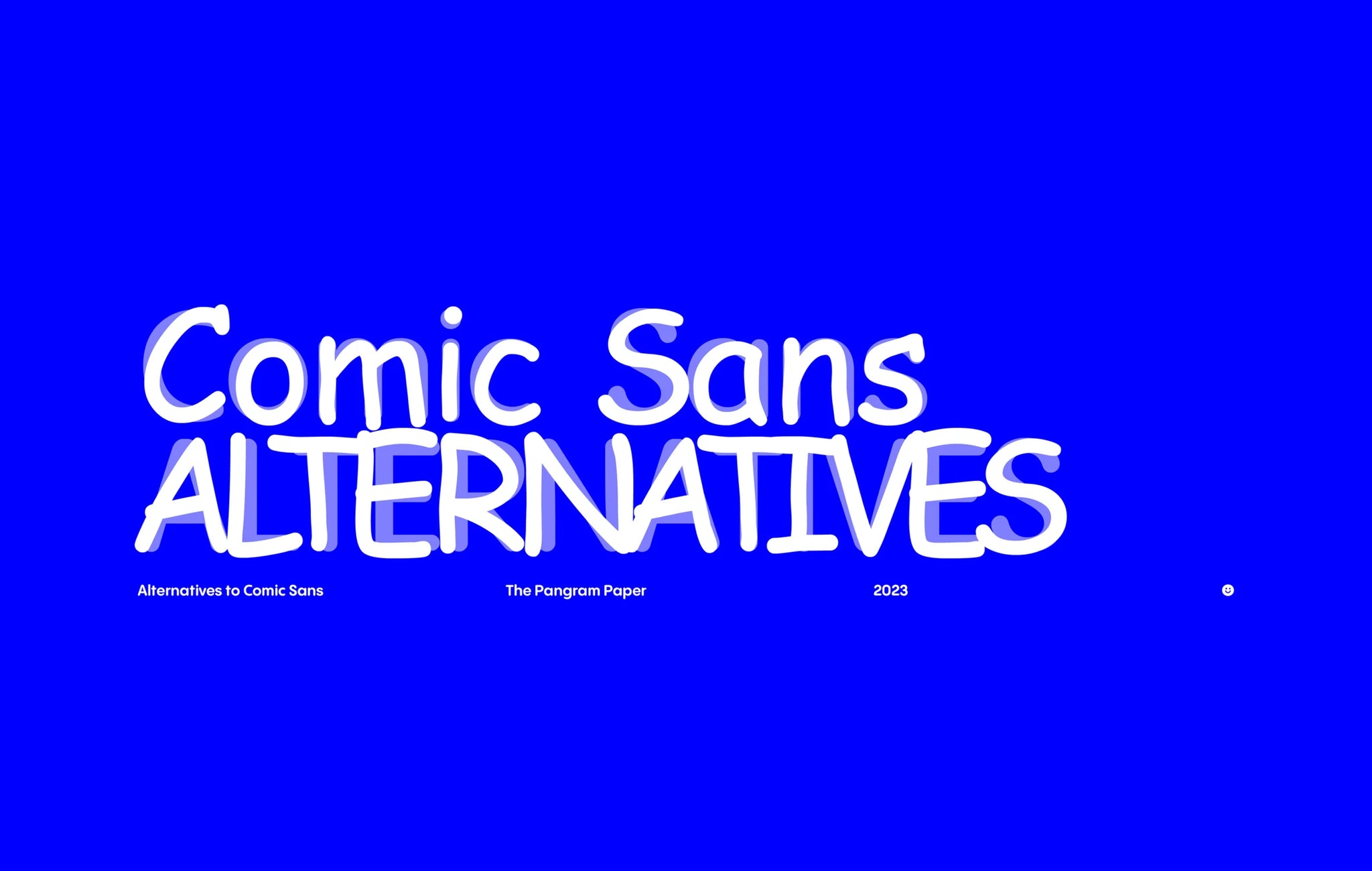
Comic Sans is one of the (if not the) most recognisable fonts in the world.
Inspired by comic book lettering, the rounded, non-connecting script was drawn originally by designer Vincent Connare in 1994 for Microsoft, designed with the earnest intention of offering the public a friendly, welcoming and – importantly – legible typeface to be freely used by the world over. In the quarter-century since its introduction, however, the sans serif has indeed… divided its critics. To some, beloved; to others, despised, Comic Sans initially found sincere usage within educational spaces due to its accessibility and friendliness, yet soon after became the well-memed, parodied and mocked household name it is now.
Considering all this history, as big font fans, we asked ourselves, is it really worth the hate? After all, it’s reported that its rounded design not only helps general retention of information, regardless of one’s neurodiversity, but its legibility actively improves the education of those with learning disabilities, such as dyslexia. But most of all, rounded fonts are fun! They can be super playful, or add that extra something to your very swiss design that you didn’t realise you needed; you can’t deny it. Who says fun can’t be cool?
With this in mind, we’ve got together five new alternatives to Comic Sans that embrace the ‘90s icon’s balance of practicality and playfulness. Praise be Comic Sans. It walked so rounded type could run!
GT Maru by Grilli Type
Offering a unique harmony between the human hand and machine, GT Maru from Swiss Type Foundry, Grilli Type, takes font-based fun to an entirely new level. Inspired by the rounded characters found in Japanese signage and the contrast to their stark Swiss counterparts, designer Thierry Blancpain set to combine the warmth and block-like construction of Japan’s brush-painted lettering with the mechanical quality of systemised letters, resulting in a prolific font family, stuffed with 25 styles, five weights in proportional and monospaced versions and two (yes two!) emoji fonts – making it even easier to express yourself.
Documan by Displaay
Initially drawn as a bespoke typeface for Charta 77 Foundation’s identity, Displaay’s semi-rounded sans serif, Documan, challenges the typewriter aesthetic of its inspiration by not actually being monospaced. Rife with playful tittles and alternate glyphs, the nine-weight, nine-style font has been continuously fine-tuned and updated over the last decade since its launch in 2013. Now, with its own entirely free to use ‘Stencil’ (STC) and decorative ‘Construct’ (CNT) cuts, Documan sets out to be a staple of the rounded sans genre, adding a wonderfully odd, unexpected extended family to the mix.
Pangram Sans Rounded by Pangram Pangram
If you’re a regular reader of The Pangram Paper, you’ll know that here at Studio Ground Floor, we’re BIG fans of Pangram Sans Rounded. Launched following the release of its angular counterpart, Pangram Sans, the friendly geometric font is as extensive a typographic workhorse as it is playful. With over 140 styles, Cyrillic support and distinctive uber-chunky weights, the typeface is a no-brainer for making any design more fun and functional. Also, the smiley face glyph is guaranteed to put a smile on your face on even the glummest of days.
G2 Kiamos by Gruppo Due
Gruppo Due’s latest monoline release, G2 Kosmos, is a mid-century geometric font for the modern day, championing a timeless, unapologetic, charming aesthetic – with enough typographic power to back up its visual strength. Drafted originally as part of Maxim Weirich’s diploma in 2019, G2 Kosmos’ foundational grid mirrors the system of Wolfgang Schmidt’s Lebenszeichen (“signs of life”), resulting in shapely, flowing letterforms that exude a profoundly personal, emotive tone. With the help of Gruppo Due, the rounded monoline is now available in a robust extended cut, as well as alternate characters that refer back to Schmidt’s original drawings.
Maax Rounded by 205TF
Elementary, effective and extremely welcoming, 205TF’s Maax Rounded, designed by Damien Gautier in 2012, earnestly offers a punchy, well-constructed font featuring three weights with corresponding italics. Due to the innately rounded terminals and construction of its non-rounded sans serif sibling, Maax, Maax Rounded forms a distinct, rhythmic design in use, succeeding in Comic San’s OG intentions – balancing play and practicality.